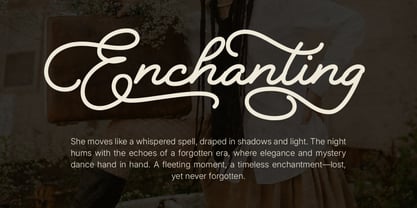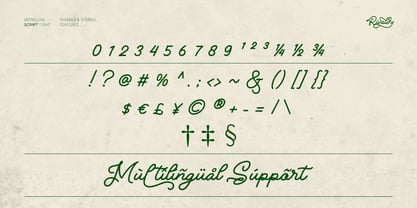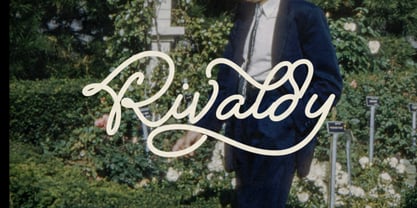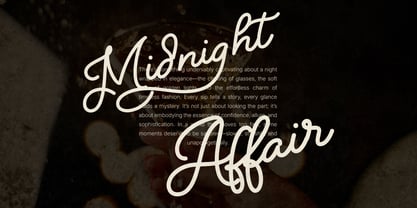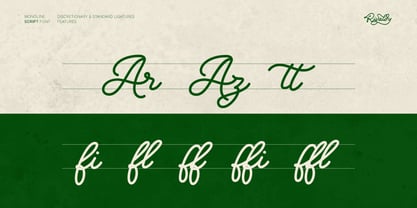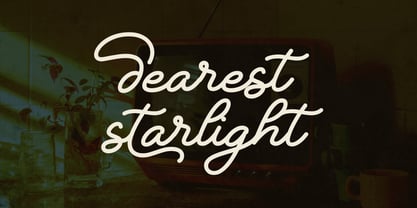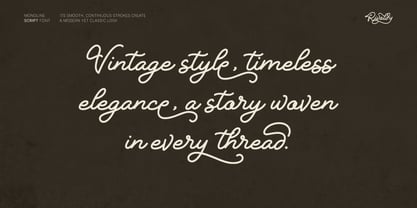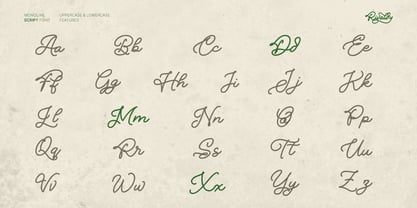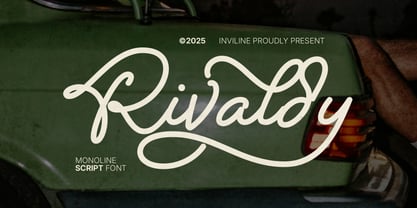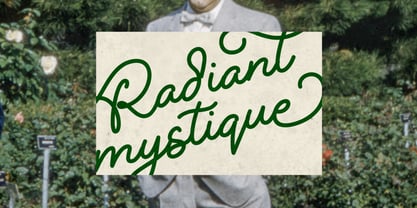
Rivaldy Monoline Script Pro
by Inviline
The Rivaldy Monoline Script Pro Font Family was designed by Virgiawan Listanto and published by Inviline. Rivaldy Monoline Script Pro contains 1 styles.
Introducing Rivaldy, a stunning Monoline Script Font that combines elegance and modern flair. With its smooth, flowing lines and unique character, Rivaldy is perfect for logos, invitations, and branding. Elevate your designs with the timeless charm of Rivaldy and make a lasting impression!
Designers: Virgiawan Listanto
Publisher: Inviline
Foundry: Inviline